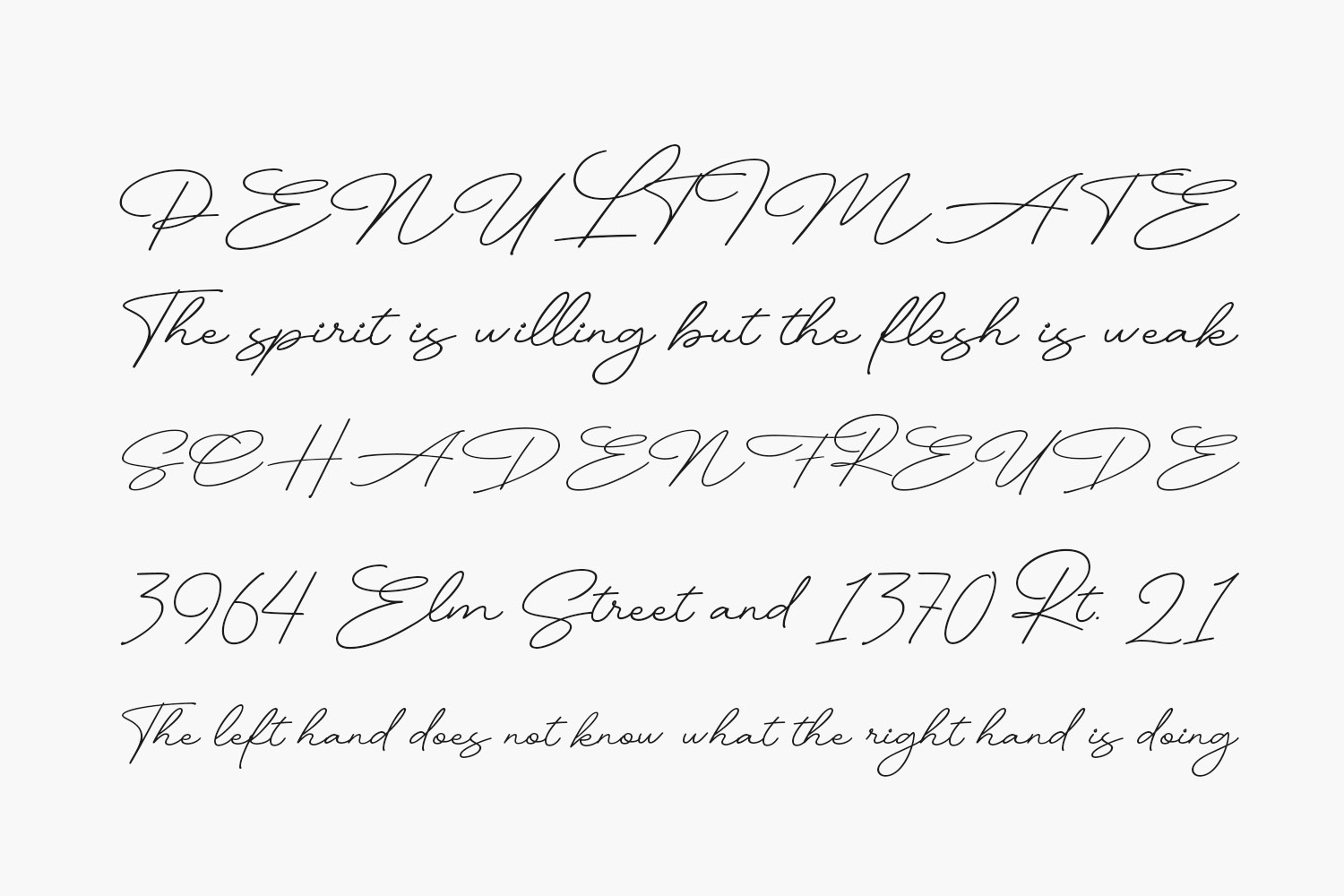
Bastinson Free Font is a thin lettered script font, featuring a retro vibe. This gentle font will look gorgeous on a variety of design ideas. It will add a joyful and romantic touch to each of your projects. Bastinson Free Font is free for personal use only. Please purchase the full version for commercial use.
Designed by Letterhend Studio